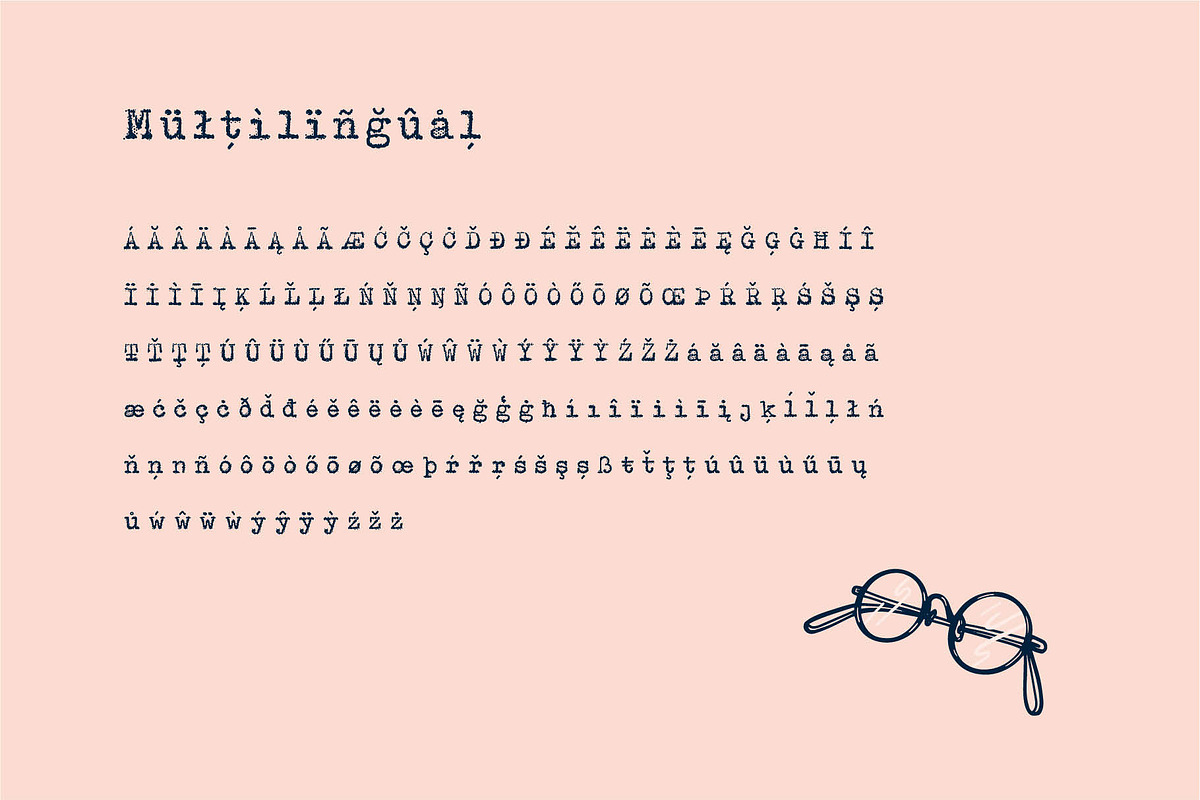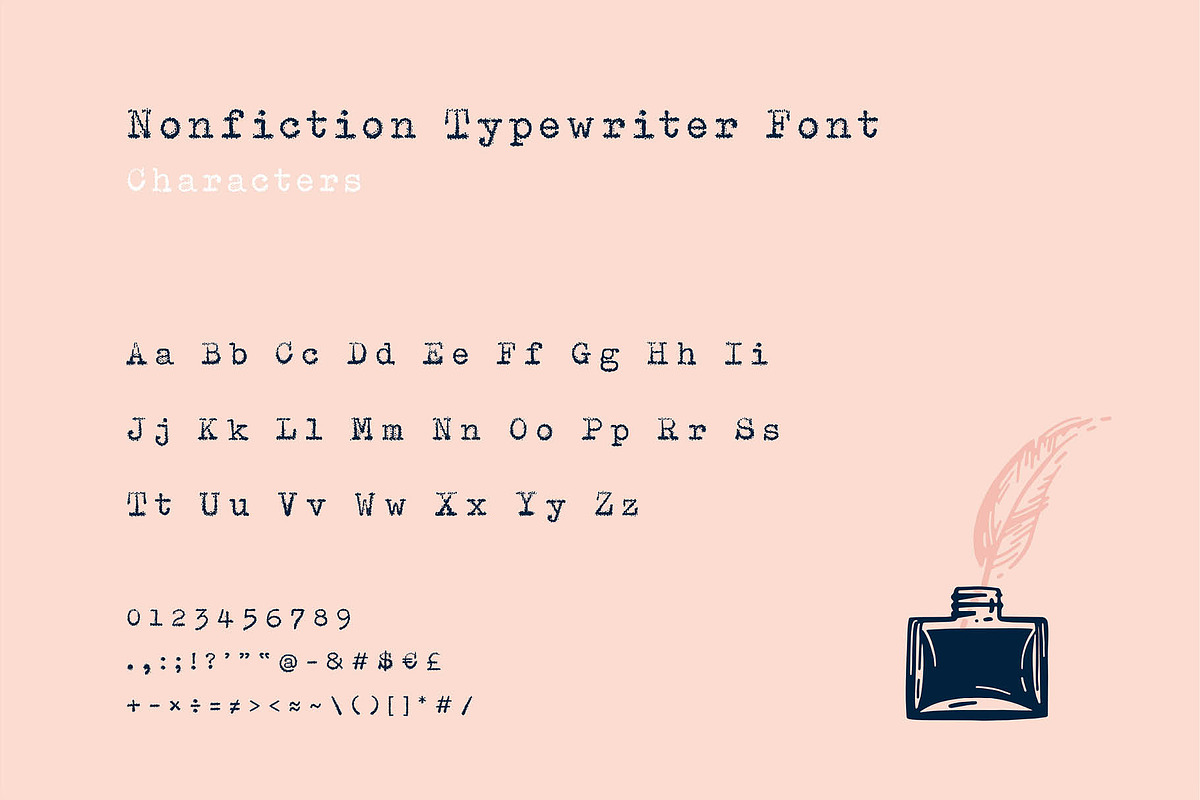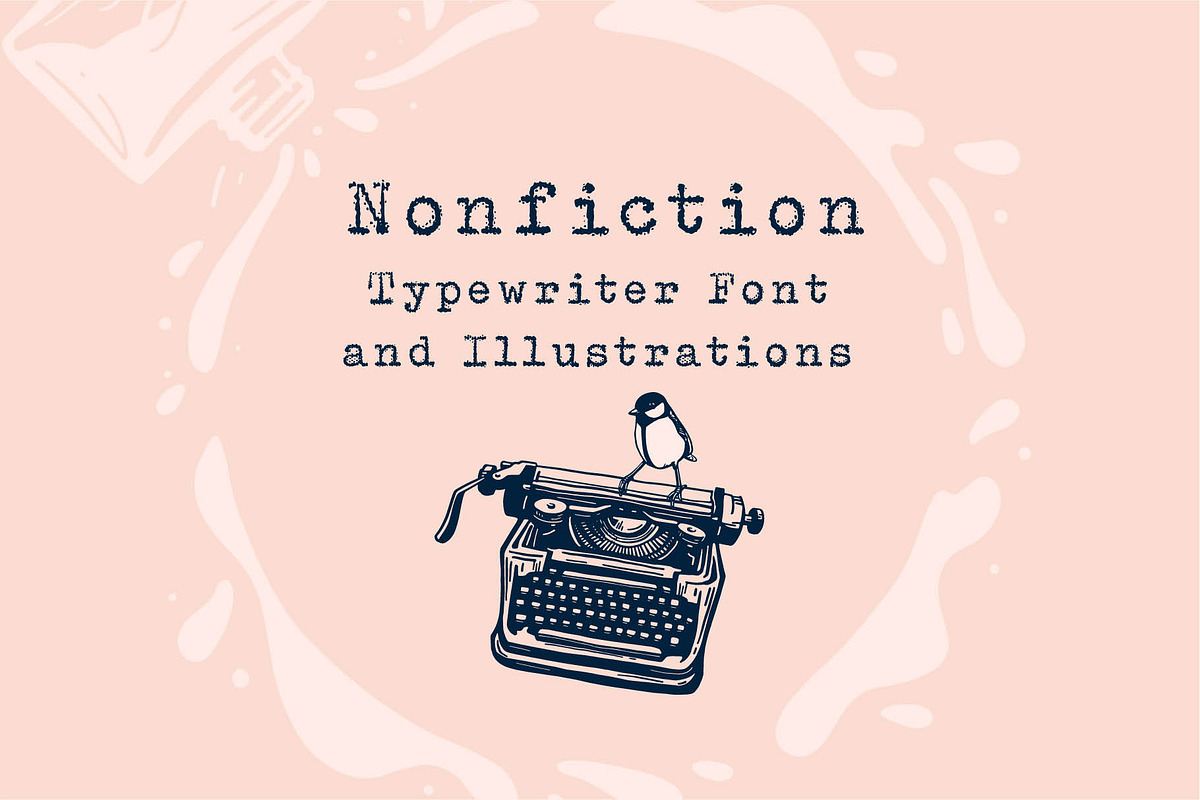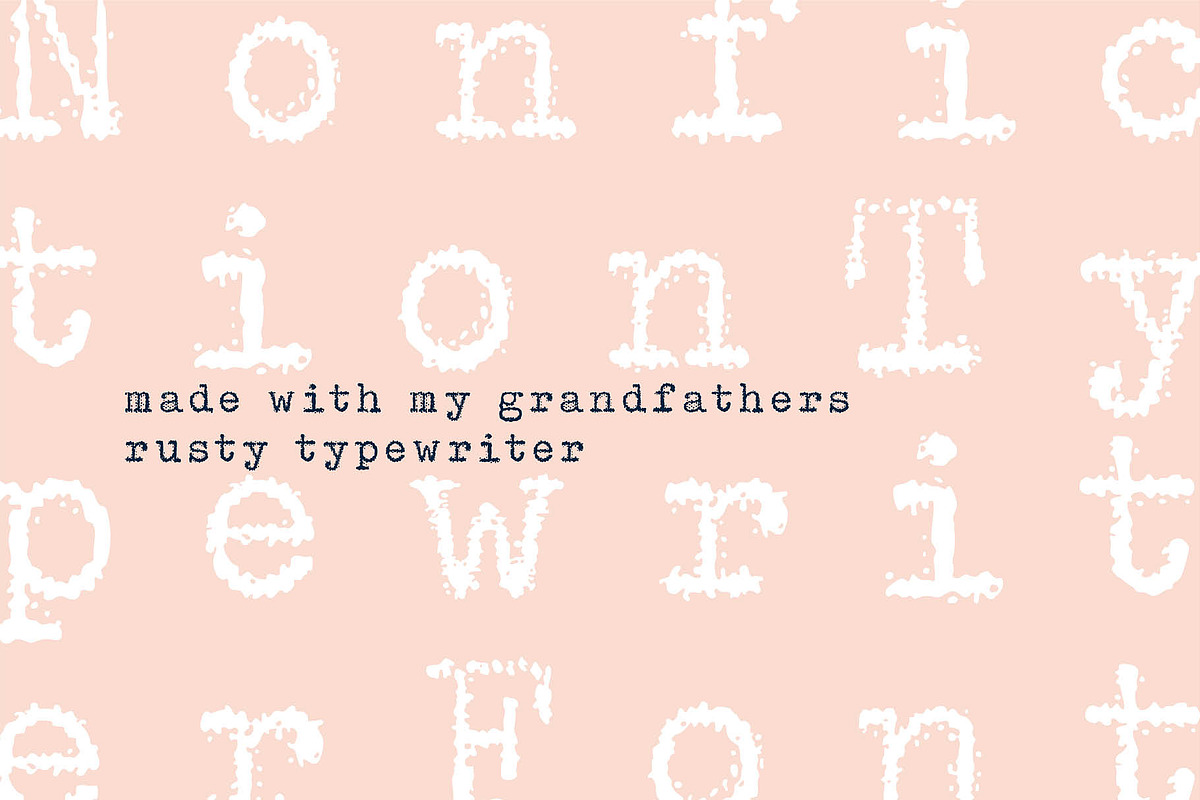
Nonfiction Typewriter Font & Extras
Nonfiction Typewriter Font & illustrations & extras
Nonfiction Typewriter Font is made with my grandfather's rusty typewriter. It includes 305 glyphs (uppercase, lowercase, punctuation, numbers, symbols, marks).